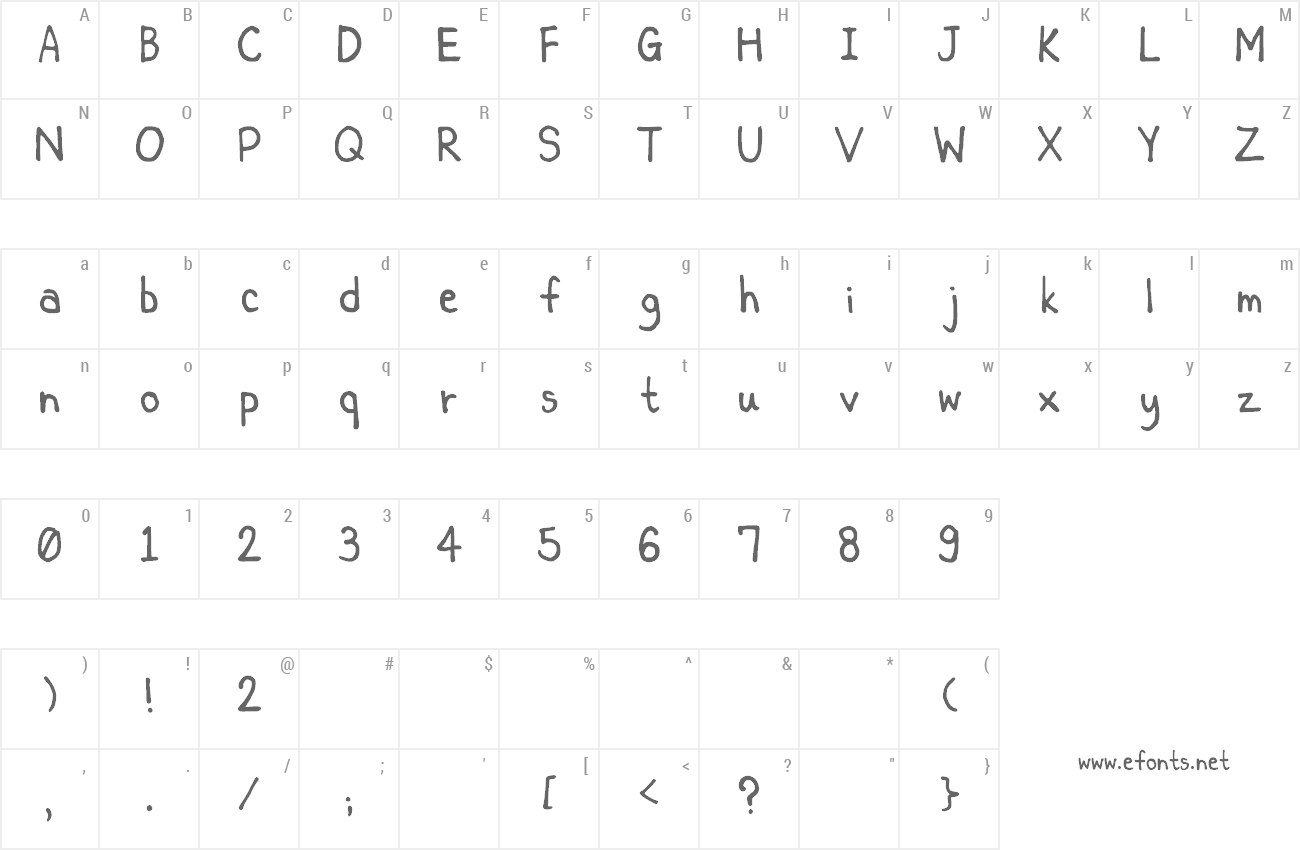
Preview and download Key's Comic Font. Created by Key NG in Fancy Comic styles with Free for personal use license.
| Font name: | Key's Comic |
| Author: | Key NG |
| Note by Key NG | |
| This is the hand writing font I created for my comic in 2009. |